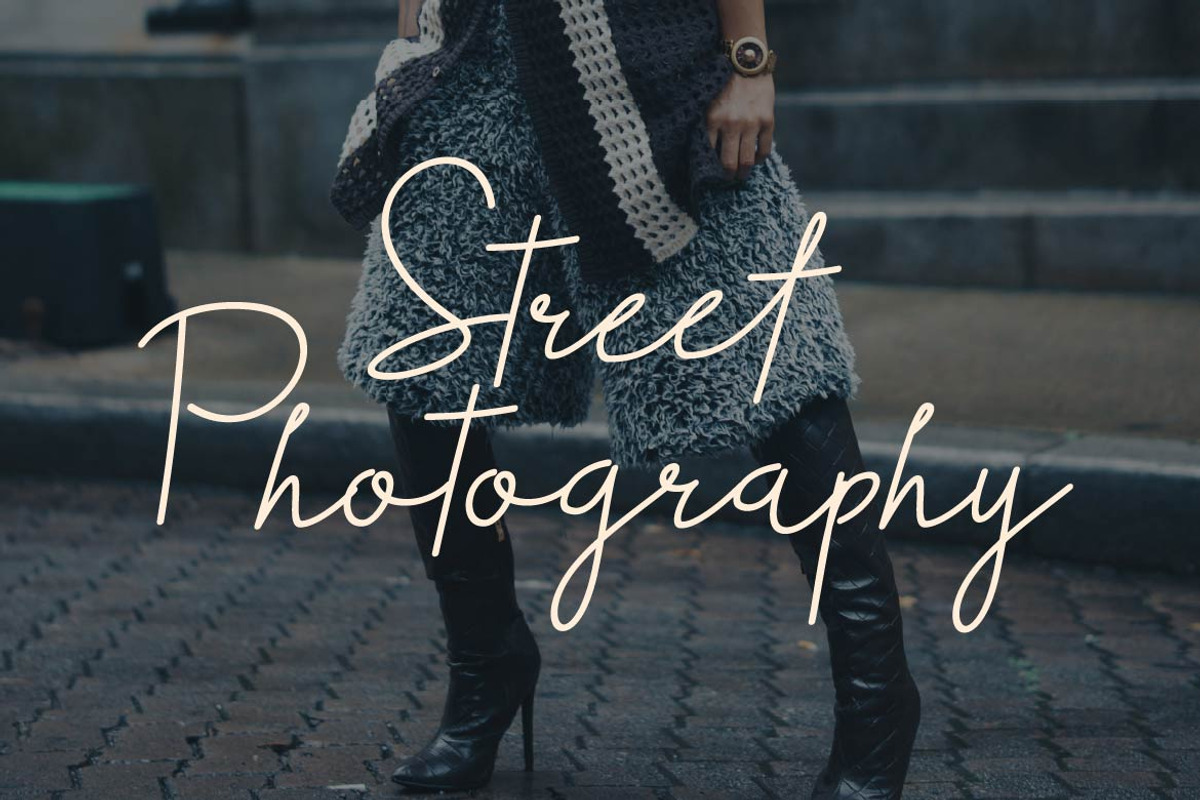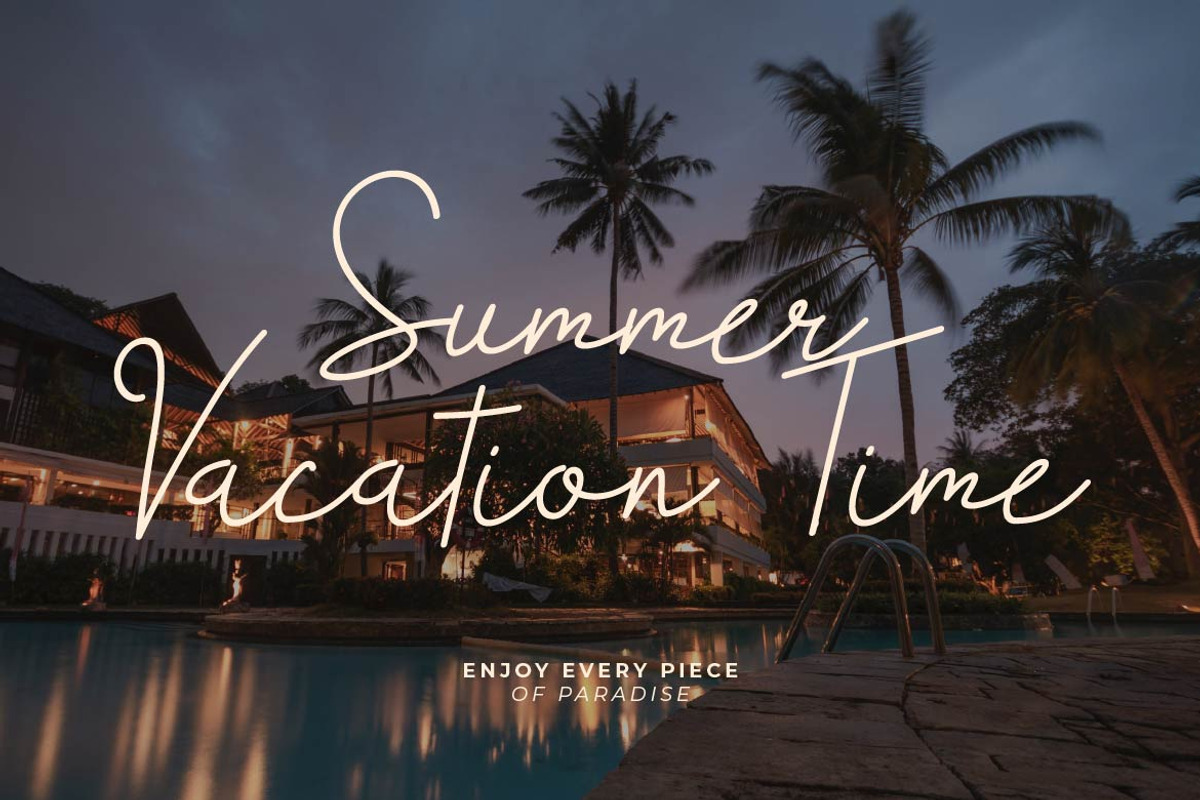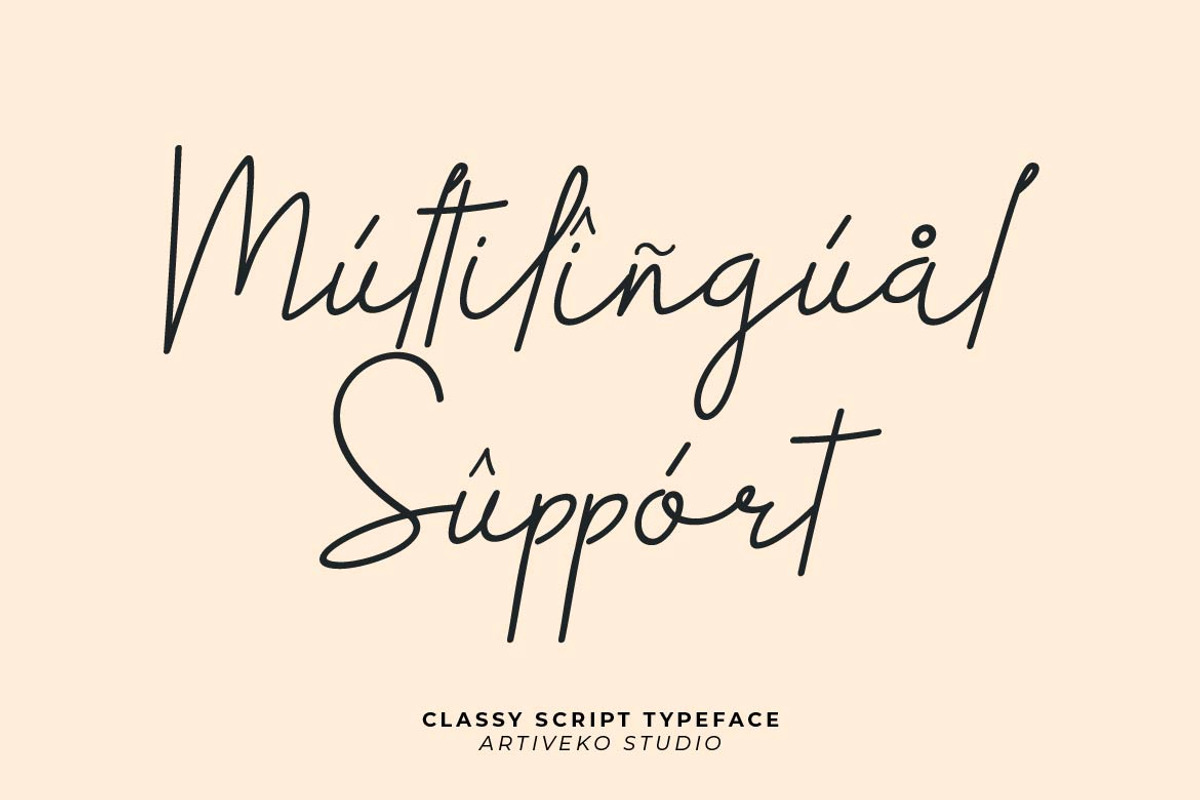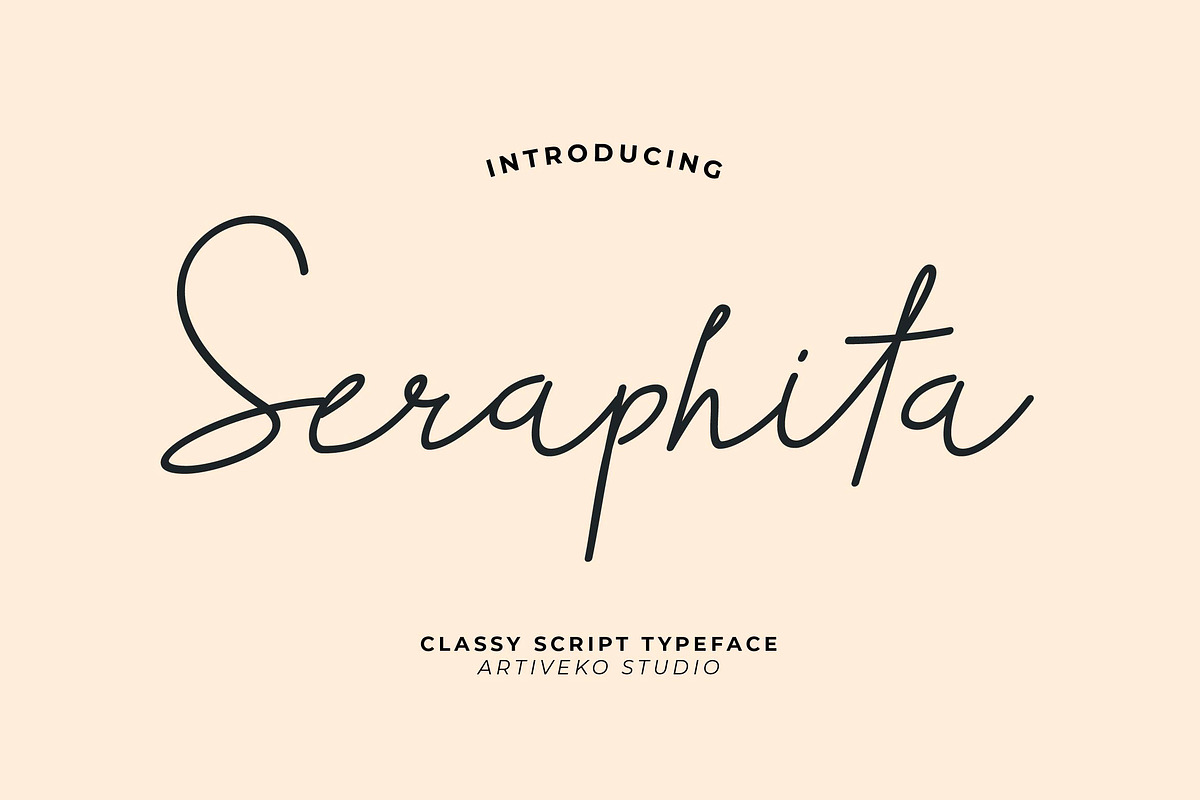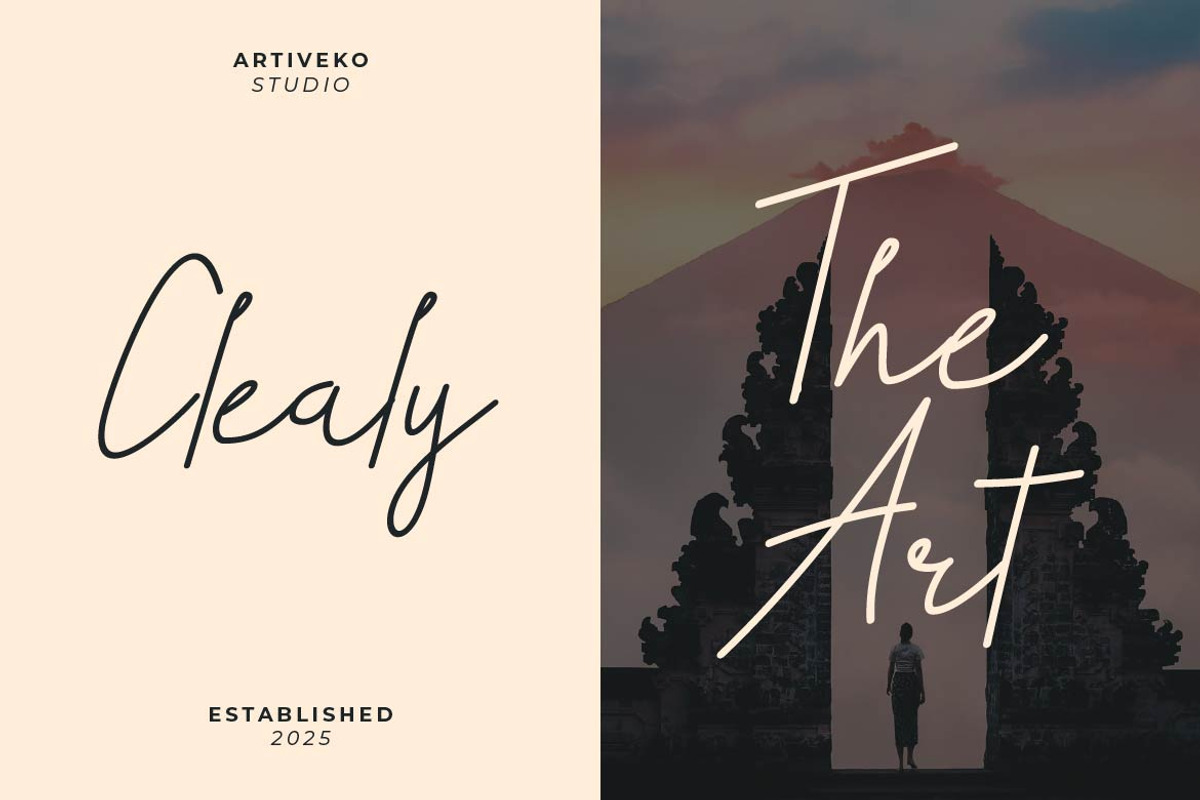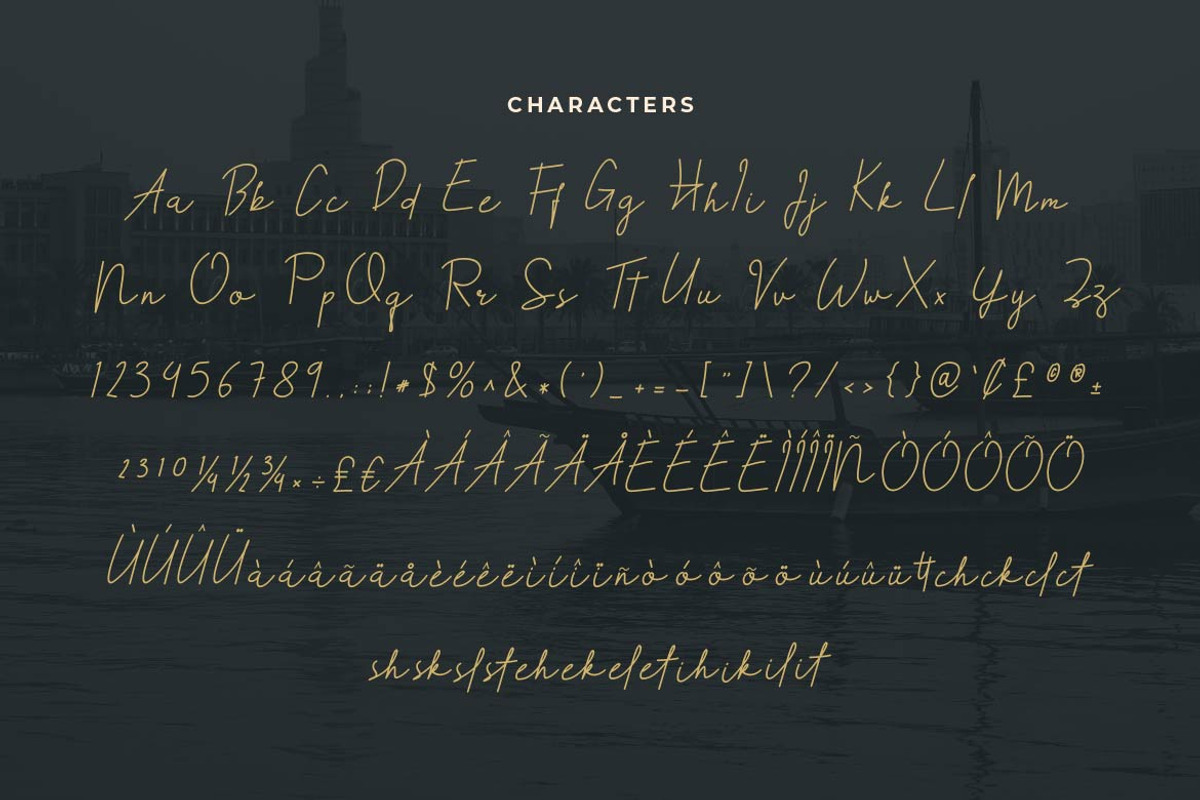
Seraphita Signature Script
Seraphita is a graceful script style font that captures the charm of handwritten calligraphy with a modern touch. Featuring smooth curves, natural strokes, and a flowing rhythm, Seraphita is perfect for wedding invitations, signature logos, greeting cards, social media posts, branding, and product packaging that require a romantic yet professional aesthetic.